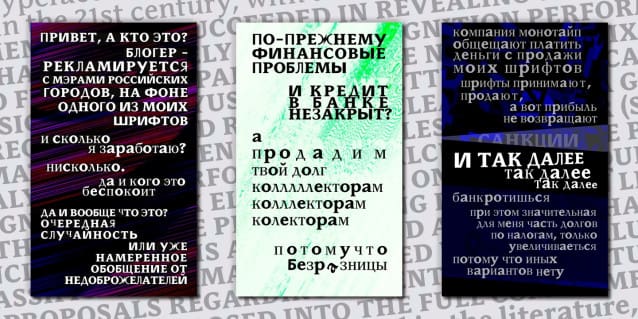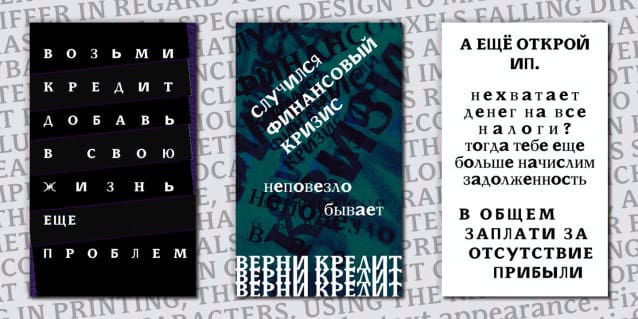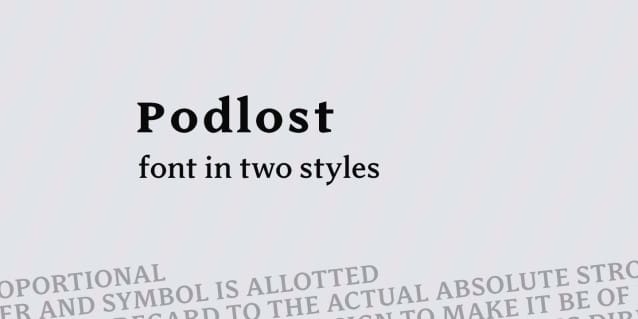
Podlost Font
Podlost Font – a modern serif font in two styles. The font has developed similar shaped serifs, also lowercase letters are overstated in x-height. Supports extended Latin and OpenType functions.Developed 2023-2024. Type designer Igor Kosinsky